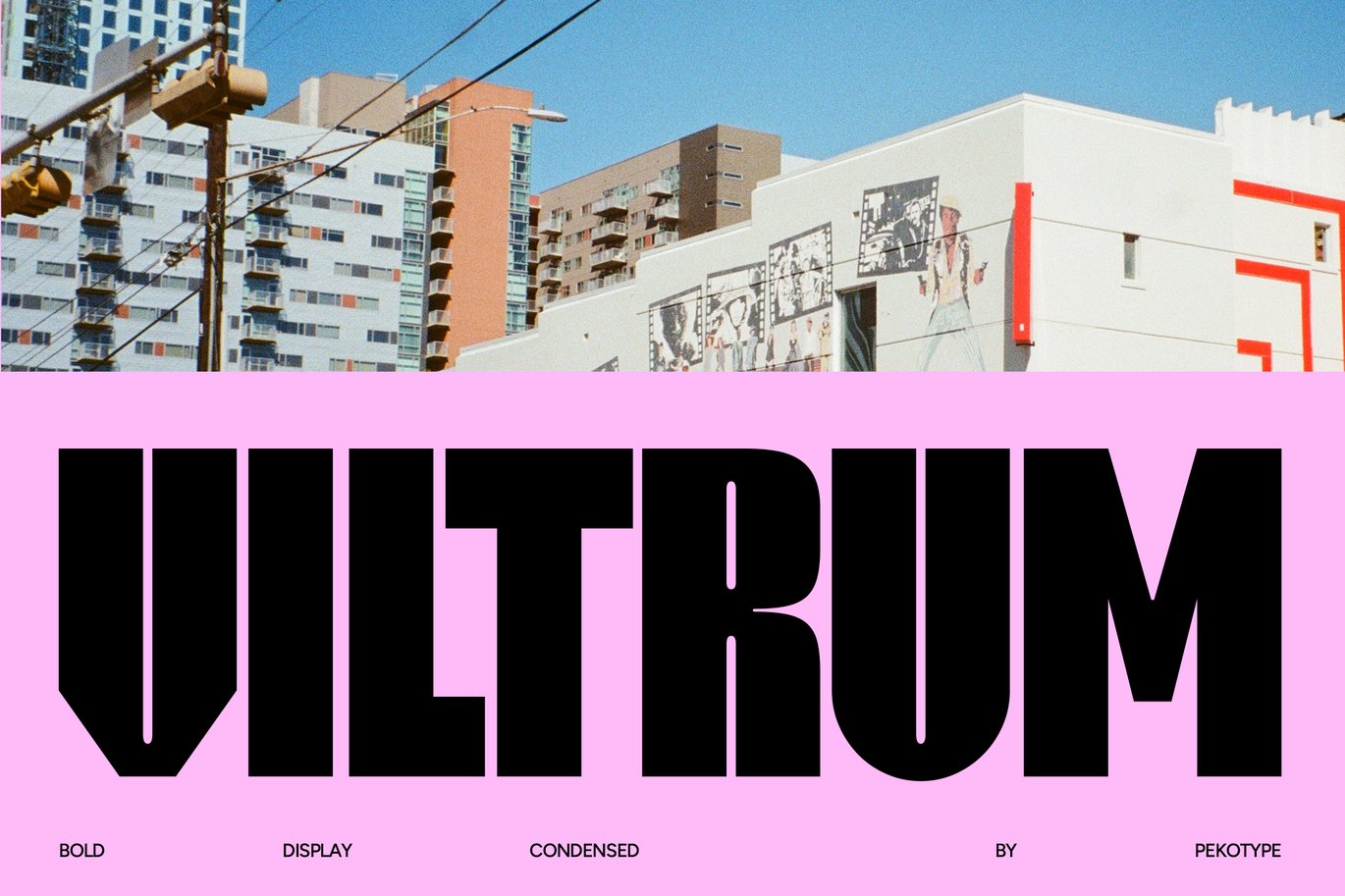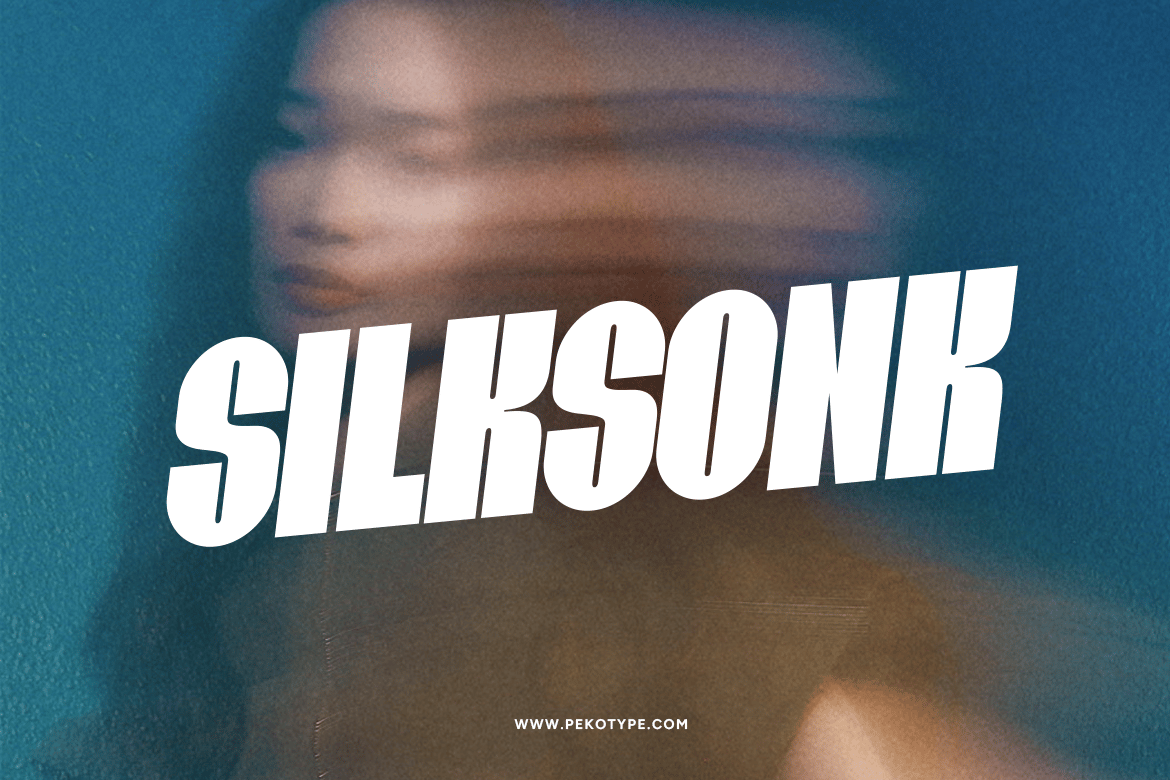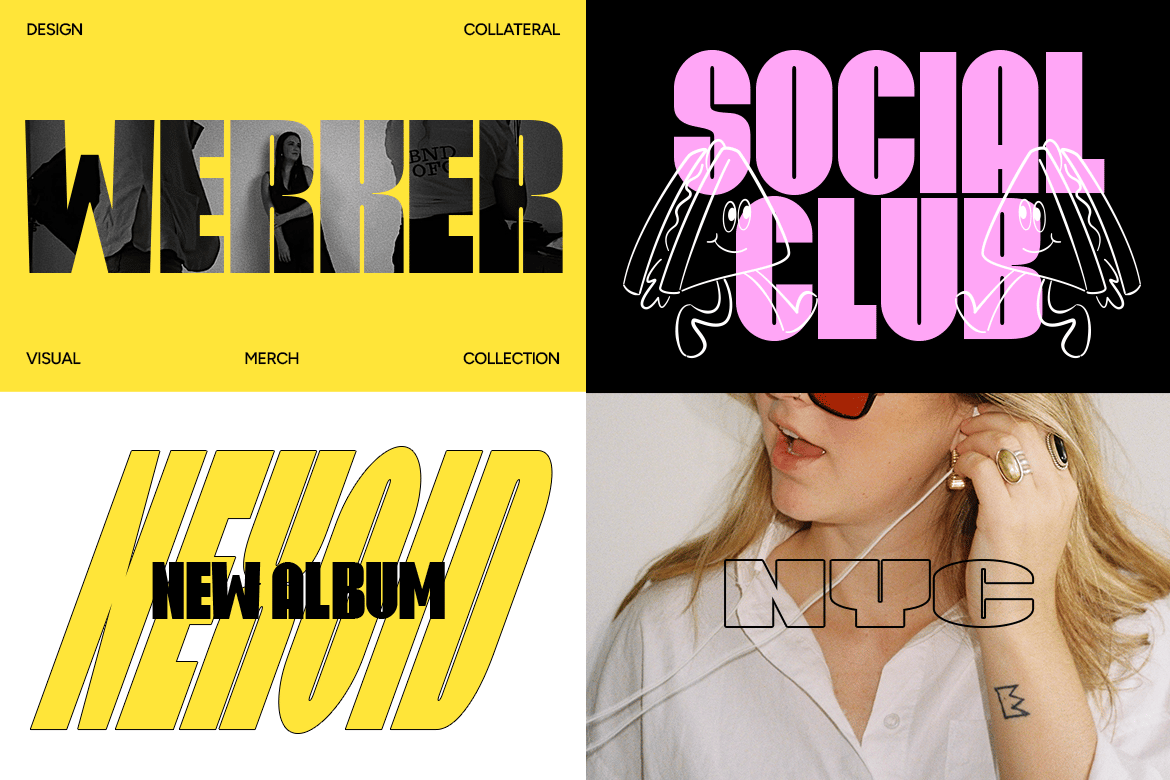
Viltrum – Super Bold Condensed Font
Viltrum – Super Bold Condensed Font is a versatile typeface ideal for various projects, including Sans-Serif, logos, branding, posters, blog headers, advertisements. The free version includes a full set of uppercase and lowercase letters, available in OTF, TTF, WOFF, WOFF2 format.